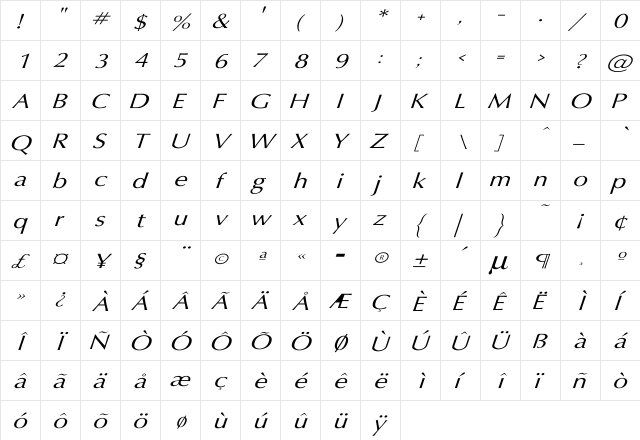
Oxford Wd Italic Italic
Design Context for Oxford Wd Italic Typeface
Oxford Wd Italic is a composed and adaptable typeface that performs quietly and consistently across a wide range of design contexts. The slanted form adds forward momentum and visual energy.
Pro Tip: Use Oxford Wd Italic for emphasis, pull quotes, and subheadings where its slanted energy can add rhythm to the layout.